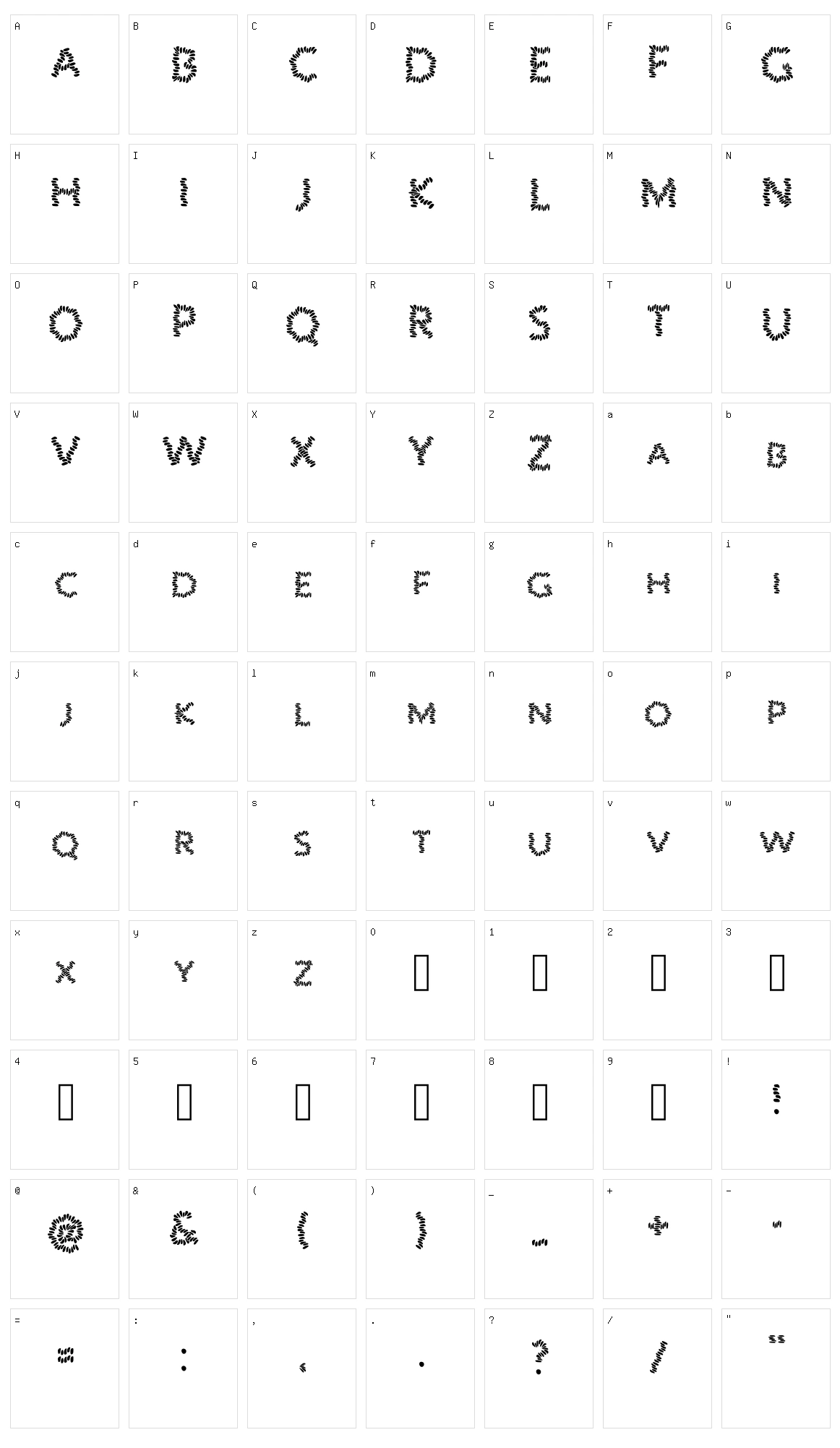
What is "Black Stones"?
This is the latest font from Tinten-Fass.Com Design! It is whacky and fun,
looks great as text, and guaranteed to make your documents more fun!